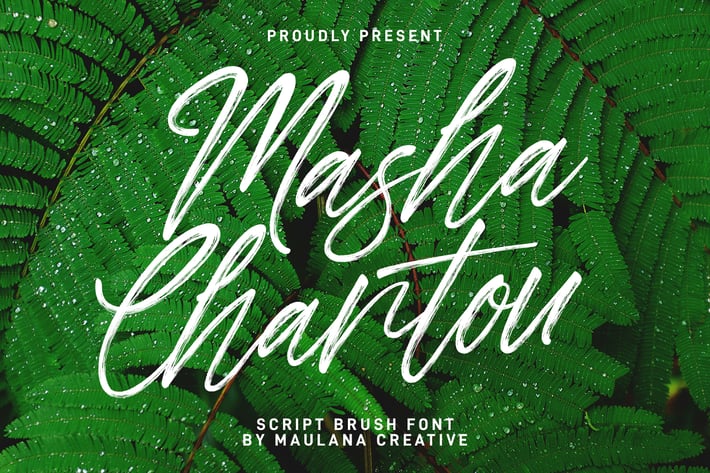
Masha Chantou Script Brush Font
Give your designs an authentic brush handcrafted feel. “Masha Chantou Script Brush Font” is perfectly suited to signature, stationery, logo, typography quotes, website header, branding and more.